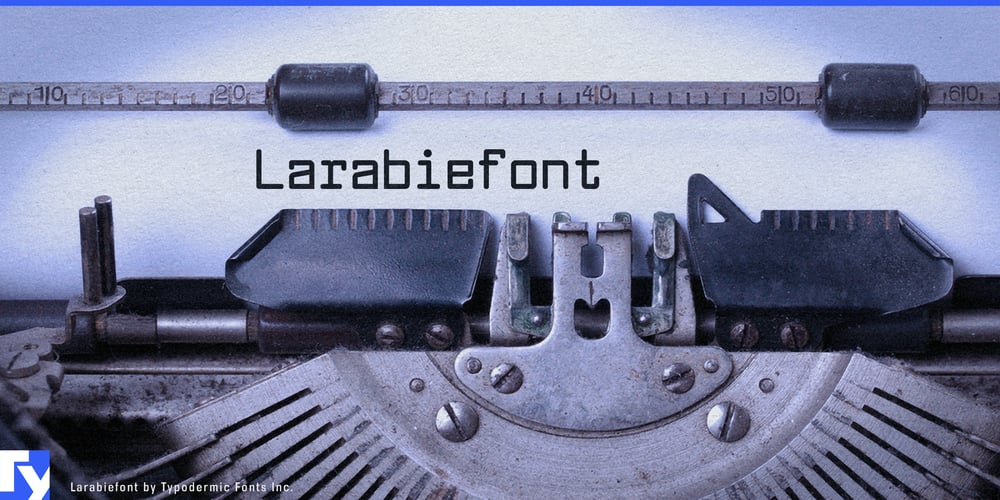
Larabiefont
Larabiefont font
Larabiefont Font Family was designed by Ray Larabie and published by Typodermic. Larabiefont contains 20 styles and family package options. Larabiefont: where the clatter of vintage typewriters meets the hum of quantum computers. It’s a time-bending marvel that captures the soul of 1970s tech nostalgia and propels it into the digital future with breathtaking finesse.Inspired by the manual typewriters of yesteryear, Larabiefont doesn’t merely mimic—it revolutionizes. Its well-defined shapes and rounded edges whisper of ribbon-inked keys and the satisfying thunk of a carriage return, while its sleek, streamlined silhouette screams of cutting-edge design. It’s as if a classic typewriter got a cyberpunk makeover, emerging as a typographic superhero ready to save the world from bland fonts. But Larabiefont isn’t content with being a mere bridge between past and present. It’s a chameleon of contemporary design, shape-shifting to meet your every typographic need. With four widths, two weights, and a full set of italics, it’s like having a typographic Swiss Army knife at your disposal. Need to craft a logo that’s both nostalgic and forward-thinking? Larabiefont’s got you covered. Want to design a website that feels both familiar and futuristic? Larabiefont is your digital muse.Larabiefont’s linguistic prowess is as impressive as its visual impact. Supporting a vast array of Latin-based European writing systems, it’s a global communicator par excellence. From the fjords of Norway to the sun-drenched plazas of Spain, Larabiefont speaks the language of design with fluency and flair, its retro-modern aesthetic transcending borders and cultures.Ready to infuse your designs with a dose of techno-nostalgia? Let Larabiefont be your typographic time machine. It’s a portal to a world where the charm of analog technology collides with the infinite possibilities of the digital age.